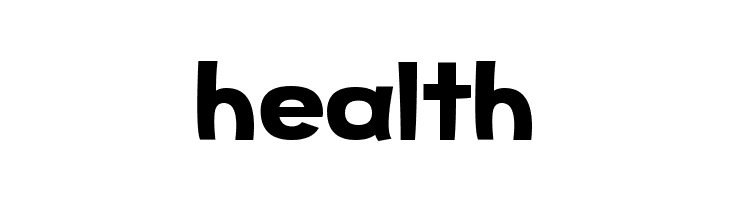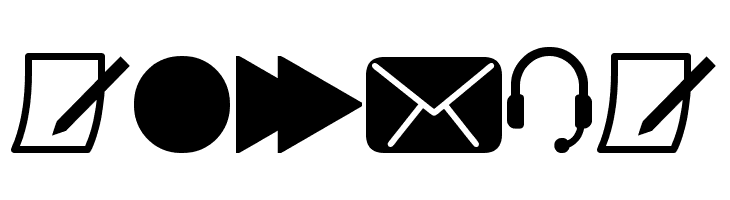
• Lyric Poetry
• Hilarious Comics light
A playful, bold typeface with rounded, thick strokes and a comic-like style.
• Vertaboy
• Dash Dot Square-7
A modern, dotted font with a digital and technical aesthetic.
• RoBo Regular
A playful, robot-themed decorative font with bold, stylized characters.
• zendingone
Decorative floral and abstract designs, not a functional font.
• OPTIOptionSemiBold
A bold, semi-bold font with strong, well-defined characters and slight stroke contrast.
• Broken Scanner Condensed Oblique
• Icons South St
Bold, geometric icon set with high contrast and clear shapes.
• BioRhyme ExtraLight
A modern, elegant font with thin strokes and excellent readability.